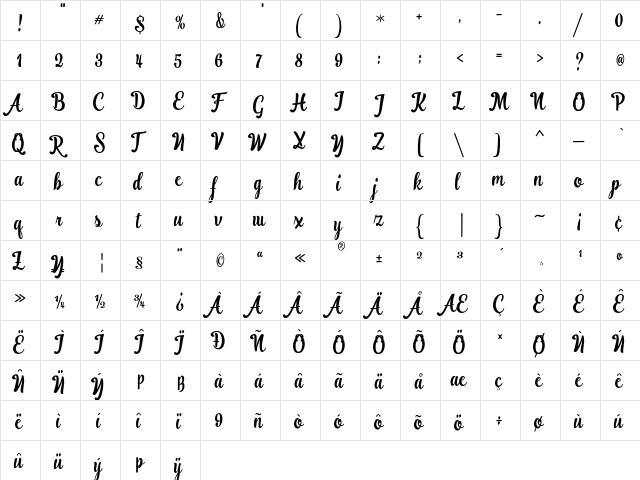
Ranykinaya Script Regular
| Foundry | Bot Kerling |
| Designer | M Abbas |
Design Context for Ranykinaya Script Typeface
Ranykinaya Script brings a calligraphic fluidity to the page — its connecting strokes and expressive curves give it an unmistakably human quality.